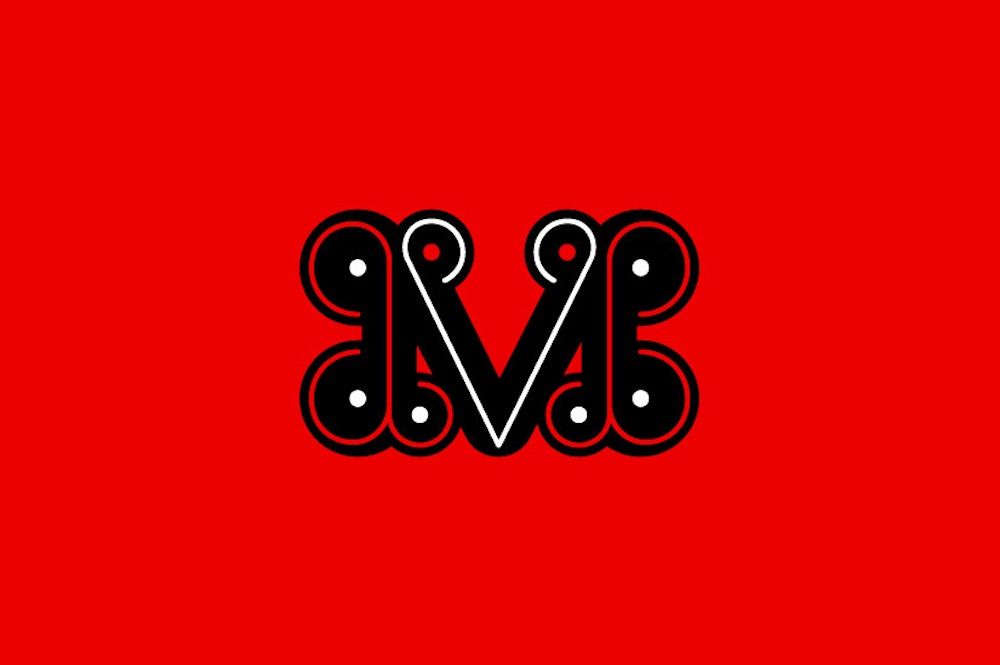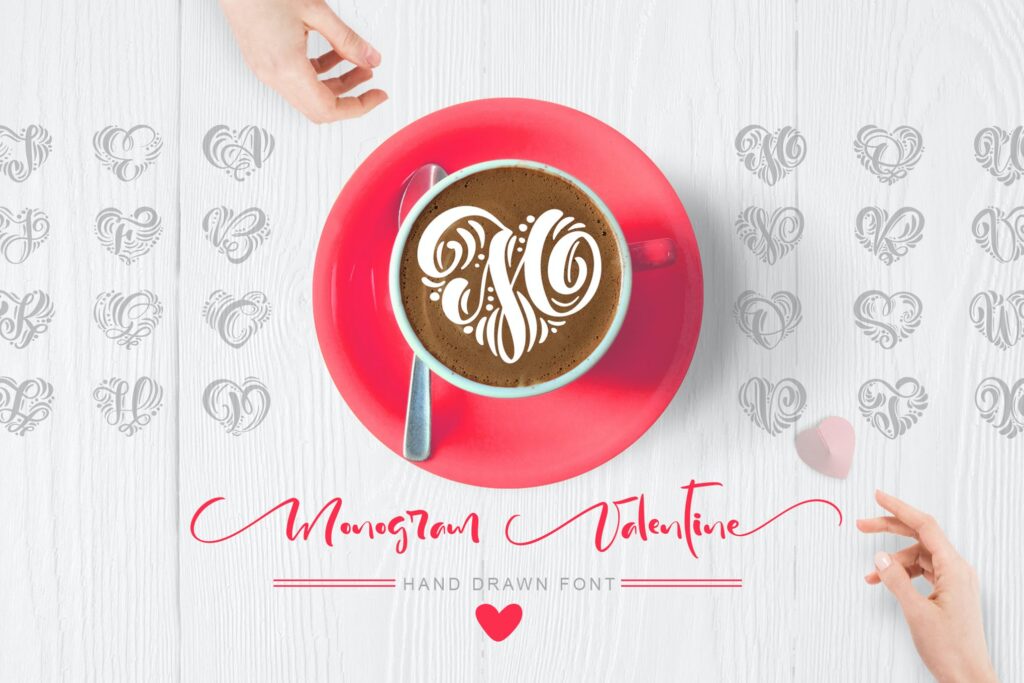
Best Monogram Fonts 2 A Deeper Dive
Best Monogram Fonts 2 isn’t just about picking pretty letters; it’s about understanding the subtle nuances that elevate a simple monogram to a powerful statement. This post delves into the world of monogram fonts, exploring everything from classic styles and historical context to the technical aspects of design and creative applications beyond the typical logo. We’ll uncover the secrets to choosing the perfect font for your next project, whether it’s a luxurious brand identity or a charming wedding invitation.
We’ll dissect the subjective nature of “best,” considering factors like readability, formality, and the impact of font weight and size. Prepare to explore serif versus sans-serif fonts, script versus modern styles, and discover how kerning and letter spacing can dramatically influence the overall aesthetic. We’ll even showcase some stunning examples and provide practical tips for incorporating monogram fonts into your own designs.
Defining “Best”
Choosing the “best” monogram font is entirely subjective. What resonates with one person might feel completely wrong to another. This is because our preferences are shaped by a complex interplay of factors, making a universally agreed-upon “best” impossible to define. Instead, let’s explore the elements that contribute to individual preferences.
Factors Influencing Monogram Font Preferences
Several key aspects influence our choices when selecting a monogram font. Style is paramount; some prefer the classic elegance of a serif font, while others might gravitate towards the clean lines of a sans-serif typeface. Readability is another critical factor, particularly for monograms intended for practical use, such as on stationery or business cards. A highly stylized font might look beautiful but be difficult to decipher.
Finally, the level of formality desired plays a significant role. A script font might be perfect for a wedding invitation, but feel out of place on a corporate logo.
Design Aesthetics in Monogram Fonts
The world of monogram fonts offers a vast array of design aesthetics. Serif fonts, characterized by small decorative strokes at the ends of letters, often convey a sense of tradition and sophistication. Think of the timeless elegance of Garamond or the classic feel of Times New Roman, though adapted for monograms these would require specific adjustments. Sans-serif fonts, lacking these strokes, appear cleaner and more modern, often projecting a sense of minimalism and contemporary style.
Helvetica and Arial are prime examples of widely used sans-serif fonts, although their application in monograms would require careful consideration and possibly custom design. Script fonts, mimicking handwritten calligraphy, offer a romantic and personalized touch, perfect for invitations or personal branding. However, their legibility can be a concern if not carefully chosen. Modern fonts often blend elements from various styles, resulting in unique and often highly versatile designs.
Impact of Font Weight and Size
Font weight significantly impacts the overall feel of a monogram. A bold weight can project strength and confidence, while a lighter weight might appear more delicate and refined. The size of the monogram also plays a crucial role. A larger monogram commands attention, while a smaller one might be more subtle and understated. The ideal weight and size will depend heavily on the intended application and the overall design aesthetic.
For instance, a bold, large monogram might be suitable for a company logo, whereas a smaller, lighter weight monogram might be better suited for a subtle watermark on stationery.
Comparison of Monogram Font Styles
The following table compares three distinct monogram font styles, highlighting their key characteristics and ideal applications:
Font Name (Illustrative Examples) Style Characteristics Best Use Case
Traditional Serif (e.g., a modified Garamond) Serif, Classic Elegant, sophisticated, timeless, potentially less legible in smaller sizes Formal invitations, logos for established businesses, classic branding
Modern Sans-serif (e.g., a custom design based on Helvetica) Sans-serif, Minimalist Clean, modern, versatile, highly legible Corporate branding, contemporary logos, minimalist designs
Elegant Script (e.g., a custom calligraphic design) Script, Calligraphic Romantic, personalized, potentially less legible depending on the style Wedding invitations, personal branding, artistic designs
Exploring Font Styles and Their Applications: Best Monogram Fonts 2
Choosing the right monogram font is crucial for creating a memorable and impactful brand identity. The style of your monogram directly influences how your brand is perceived, communicating everything from luxury and sophistication to casual approachability. This exploration delves into various font styles, their historical context, and their application in different branding scenarios.
See also  What is Lorem Ipsum A Designers Best Friend?
Monogram fonts have evolved significantly over time, reflecting the changing tastes and trends of each era. Understanding this historical context helps us appreciate the nuances and connotations associated with different styles.
Classic Monogram Font Styles and Their Historical Context
Classic monogram styles often draw inspiration from historical lettering and calligraphy traditions. For example, serif fonts, with their small decorative flourishes at the ends of strokes, frequently evoke a sense of tradition and elegance. Think of the elegant, slightly italicized serifs often seen in formal invitations or the logos of established luxury brands. These styles often trace their roots back to the Renaissance or even earlier, reflecting the craftsmanship and attention to detail valued during those periods.
Conversely, simpler, sans-serif monograms, lacking these flourishes, can project a more modern and minimalist aesthetic, often associated with contemporary branding. The clean lines of a sans-serif monogram can be seen in many modern tech company logos, reflecting a sense of efficiency and innovation. Script fonts, mimicking handwritten calligraphy, lend a personal and often luxurious touch, frequently employed in high-end fashion or personalized stationery.
Suitability of Monogram Fonts for Different Branding Purposes
The choice of monogram font significantly impacts brand perception. Luxury goods often utilize elegant serif or sophisticated script fonts to convey exclusivity and high quality. Imagine the embossed, serif monogram on a high-end leather handbag, immediately signaling luxury. In contrast, casual apparel brands might opt for simpler sans-serif or playful script fonts to create a more approachable and relatable image.
A bold, sans-serif monogram on a t-shirt brand communicates a modern and accessible style. Formal invitations commonly feature elegant serif or script fonts, reflecting the formality of the occasion. The intricate details of a script font on a wedding invitation create a sense of romance and celebration.
Examples of Monogram Fonts Used in Logos and Branding
Many successful brands effectively utilize monogram fonts in their logos. The iconic Chanel logo, with its interlocking Cs, is a prime example of a sophisticated script monogram that instantly communicates luxury and timeless elegance. The simple, geometric sans-serif monogram of IBM conveys a sense of stability and technological prowess. Conversely, the slightly playful script monogram of a brand like Ralph Lauren successfully blends classic elegance with a touch of casual sophistication.
These examples demonstrate how the right font choice can significantly contribute to a brand’s overall identity and messaging.
Mock Monogram Logo Designs
Let’s visualize three different monogram logos, each showcasing a distinct font style and its associated brand personality.
Design 1: Luxury Perfume Brand
– A sophisticated serif font, reminiscent of Art Deco typography, is used to create an elegant and refined monogram. The letters are slightly italicized and feature subtle flourishes, enhancing the luxurious feel. The color palette consists of deep jewel tones, further reinforcing the sense of opulence and high quality. The overall impression is one of classic elegance and timeless sophistication.
Design 2: Modern Tech Startup
-A minimalist sans-serif font is employed, featuring clean lines and geometric shapes. The monogram is simple and uncluttered, reflecting the efficiency and innovation associated with the tech industry. The color scheme utilizes a bold primary color, creating a strong visual impact and conveying a sense of energy and modernity. The overall design communicates clarity, precision, and forward-thinking.
Design 3: Artisanal Coffee Roaster
-A slightly rustic serif font with a handcrafted feel is chosen. The monogram features subtle texture and imperfect lines, suggesting authenticity and a handcrafted approach. The color palette incorporates warm earthy tones, evoking a sense of comfort and natural goodness. The overall design communicates warmth, quality, and a connection to traditional craftsmanship.
Technical Aspects of Monogram Fonts
Creating a truly stunning monogram involves more than just picking a pretty typeface; it delves into the technical intricacies of typography. Understanding these aspects is crucial for achieving both aesthetically pleasing and functionally sound results. This section will explore the process of crafting custom monogram fonts, the importance of fine-tuning spacing, and common pitfalls to avoid.
Custom Monogram Font Creation
The creation of a custom monogram font is a multifaceted process, often requiring specialized software and a strong understanding of typography. It typically begins with sketching initial designs, exploring different stylistic approaches, and defining the overall aesthetic. Then, using vector-based software like Adobe Illustrator or FontLab Studio, the designer meticulously crafts each letterform, ensuring consistency in weight, stroke width, and overall style.
This involves careful consideration of letter connections, serifs (if applicable), and the overall visual harmony between letters. Once the individual characters are finalized, they are meticulously tested and adjusted within a font editor to ensure proper spacing and kerning. Finally, the font is exported in various formats (like OTF or TTF) for use in design software. The entire process is iterative, requiring numerous refinements and adjustments until the desired quality is achieved.
Kerning and Letter Spacing in Monogram Design
Kerning and letter spacing are critical for monogram legibility and visual appeal. Kerning refers to the adjustment of space between individual letter pairs, while letter spacing (tracking) adjusts the space between all letters in a word or phrase. In monogram design, precise kerning is especially important, as the close proximity of letters within a monogram can easily lead to visual crowding or awkward spacing if not carefully adjusted.
See also  Design Creating Instant Impressions on People
For example, the space between a tightly curved “C” and a straight “M” might need to be reduced to avoid an overly wide gap. Conversely, letters like “A” and “V” might require increased spacing to prevent them from appearing visually cramped. Mastering these adjustments ensures that the monogram is balanced, harmonious, and easily readable, even at small sizes.
Common Issues with Monogram Fonts
Despite their elegance, monogram fonts can present challenges. Legibility is often a primary concern, especially when using highly stylized or ornate designs. Excessively decorative fonts can make it difficult to distinguish between letters, especially in smaller sizes. Scalability is another key issue; a font that looks crisp at large sizes might become blurry or distorted when scaled down for use in small applications like website icons or social media profiles.
Finally, the limited character set of a monogram font (typically only containing uppercase letters and potentially some numerals) can restrict its applications compared to a full alphabet font. Careful consideration of these limitations is crucial for choosing and using monogram fonts effectively.
Resources for Finding High-Quality Monogram Fonts
Finding high-quality monogram fonts is relatively easy, with many options available both for free and at a cost.
• Free Resources: Websites like Google Fonts, Font Squirrel, and DaFont offer a selection of free monogram fonts, although the quality and variety can be limited. It’s important to carefully review licenses before using free fonts, as some have restrictions on commercial use.
• Paid Resources: Platforms like Creative Market, Etsy, and MyFonts offer extensive collections of high-quality monogram fonts, often created by professional designers. Paid fonts typically offer better quality, more extensive character sets, and often include commercial licenses.
• Font Foundries: Many independent font foundries specialize in creating custom fonts, including monograms. These often provide bespoke designs and high levels of customization, but come at a higher price point.
Remember to always preview fonts at various sizes and in different contexts before committing to a purchase to ensure they meet your specific needs.
Creative Applications Beyond Logos
Monogram fonts, while undeniably powerful in logo design, possess a versatility that extends far beyond corporate branding. Their elegant simplicity and inherent personalization make them ideal for a wide range of creative projects, adding a touch of sophistication and unique identity to various design applications. Let’s explore some exciting ways to utilize these fonts beyond the typical logo.
Monogram Fonts in Stationery and Wedding Invitations
The classic elegance of monogram fonts finds a natural home in stationery and wedding invitations. Imagine a crisp, minimalist business card featuring a subtly embossed monogram in a serif typeface like Didot or a playful, handwritten-style monogram on a brightly colored wedding invitation suite using a script font like Pacifico. The personalized touch instantly elevates the piece, adding a level of sophistication and distinction.
For stationery, a subtle monogram can be incorporated into letterheads, envelopes, and notecards, creating a cohesive and professional brand identity. Wedding invitations can utilize monograms prominently, perhaps incorporating them into the main design element or as a subtle detail on the RSVP card. The choice of font heavily influences the overall tone and style; a bold, geometric monogram projects a modern feel, while a delicate, flowing script creates a romantic ambiance.
Monogram Fonts in Packaging Design
Packaging design offers another fertile ground for creative monogram applications. Consider a luxury skincare brand using a refined, Art Deco-inspired monogram on its product packaging. The monogram could be embossed, foil-stamped, or simply printed, depending on the desired aesthetic and production budget. Similarly, a craft brewery might employ a rustic, hand-drawn monogram on its beer labels, conveying a sense of authenticity and handcrafted quality.
So, I’ve been obsessed with finding the best monogram fonts 2 lately – seriously, the possibilities are endless! I even found myself needing a little inspiration for creating engaging thumbnails, which led me to check out this awesome guide on getting it on with youtube for some video marketing tips. Turns out, good visuals are key, even for something as seemingly simple as monogram design.
Back to those fonts though – I think I’ve finally narrowed it down!
The monogram acts as a visual shorthand for the brand, instantly recognizable and memorable. Even simpler products can benefit; a small, elegant monogram on a bespoke candle or a handcrafted soap adds a touch of luxury and personality.
Monogram Fonts in Typography-Focused Artwork
Monogram fonts can be the star of the show in typography-focused artwork. Imagine a piece of art where the monogram itself is the central focus, perhaps manipulated and layered to create a visually striking effect. The artwork could utilize different sizes, weights, and colors of the same monogram, creating a sense of rhythm and visual interest. A simple, elegant monogram in a classic serif typeface could be beautifully rendered in a minimalist poster design.
Alternatively, a more complex, intricate monogram could form the basis of a more elaborate artwork, incorporating textures and gradients to enhance its visual appeal. The creative possibilities are virtually endless. One could even experiment with different techniques, such as letterpress printing or hand-lettering, to add unique texture and depth to the final piece.
Monogram Fonts in Website Design
Incorporating monogram fonts into website design requires careful consideration. Overuse can easily overwhelm the design. However, strategically placed, a monogram can add a touch of class and sophistication. A subtle monogram can be used as a favicon (the small icon displayed in browser tabs), or as a watermark on images. More prominently, it could be used as a logo, naturally, or as a subtle design element within the header or footer.
See also  Full Branding Packages Businesses Thrive
The key is to maintain balance and ensure the monogram complements the overall website design rather than competing with it. For example, a clean, modern website might use a minimalist geometric monogram, while a more traditional website might opt for a classic serif or script font. The choice of font should always align with the overall brand aesthetic and target audience.
Visual Representation of Creative Monogram Font Applications
Imagine three distinct visuals. First, a close-up shot of a luxurious wedding invitation suite. The main invitation features a delicate, script-style monogram in a deep burgundy ink, elegantly intertwined with floral elements, printed on thick ivory cardstock. Second, a photograph showcasing a range of artisanal soaps, each bearing a simple, embossed monogram in a classic serif typeface.
The monograms are subtly different in design for each soap’s unique scent, showcasing brand identity while maintaining consistency. Third, a digital mockup of a website homepage. The header subtly features a geometric monogram in a muted gold tone, acting as a refined brand identifier against a clean, minimalist background. The overall effect is sophisticated and memorable, showcasing the monogram’s subtle yet impactful role in the website’s design.
Font Compatibility and Usage
Choosing the perfect monogram font is only half the battle. Ensuring its seamless integration across different platforms and its legal usage are equally crucial for a successful project. This section delves into the practical aspects of font compatibility, licensing, and best practices for achieving optimal clarity and readability.
Monogram fonts, like all typefaces, aren’t universally compatible. Their rendering can vary depending on the operating system, software application, and even the device’s display settings. Licensing considerations are also paramount, especially for commercial use. Understanding these factors is vital for avoiding costly mistakes and ensuring a professional outcome.
Operating System and Software Compatibility
The compatibility of a monogram font hinges on the operating system’s font rendering engine and the software’s ability to interpret font data correctly. For example, a highly stylized font might render perfectly in Adobe Illustrator but appear distorted or pixelated in a basic word processor. Fonts designed for print may not translate well to screens, and vice-versa. Testing your chosen font across various platforms (Windows, macOS, iOS, Android) and software (Adobe Creative Suite, Microsoft Office, web browsers) is essential before finalizing its use.
Slight adjustments to kerning or tracking might be necessary to ensure consistent appearance across different environments. Furthermore, older operating systems may have limited support for newer font formats, potentially leading to display issues.
Licensing Implications for Commercial Projects
Using fonts in commercial projects requires careful attention to licensing. Most fonts fall under specific licenses, which dictate how they can be used. Free fonts often have restrictions on commercial use, while commercial fonts usually require purchasing a license. These licenses can vary, permitting use for personal projects, web use, print media, or embedding in software, with each usage type potentially having a different cost.
Ignoring licensing agreements can lead to copyright infringement, resulting in legal action and financial penalties. Always check the license agreement before using any font in a commercial project. Using a font without a proper license can result in significant legal and financial consequences. It’s crucial to obtain the appropriate license to avoid these issues.
Selecting Appropriate Monogram Fonts Based on Project Requirements, Best monogram fonts 2
The best monogram font for a project depends heavily on its intended application and target audience. A classic serif font might be suitable for a luxurious brand, while a modern sans-serif font could be better for a tech startup. Consider the overall aesthetic, brand identity, and readability requirements. For instance, a monogram intended for a wedding invitation will likely require a more elegant and refined typeface compared to a monogram for a sports team, which may benefit from a bolder, more impactful font.
The context and intended audience must always guide font selection. Simple, legible fonts are generally preferable for logos that will be used at small sizes or in various contexts.
Ensuring Clarity and Readability of Monograms
Clarity and readability are paramount for any monogram. The font’s weight, size, spacing, and kerning all play a role in its legibility. Overly ornate or complex fonts can be difficult to read, especially at smaller sizes. Testing the monogram at various sizes and resolutions is crucial to ensure it remains clear and easily recognizable. Sufficient spacing between letters (kerning) is essential to prevent letters from merging or appearing cramped.
Furthermore, the choice of background color and contrast also impact readability. A monogram placed on a busy background should have sufficient contrast to stand out effectively. In digital applications, the resolution of the image file is critical for ensuring that the monogram retains its crispness when scaled.
Closing Notes
Ultimately, selecting the “best” monogram font is a deeply personal journey, guided by your unique vision and project needs. This exploration of Best Monogram Fonts 2 has hopefully equipped you with the knowledge and inspiration to confidently navigate the world of monogram design. Remember to consider the context, your audience, and the overall message you want to convey.
With careful consideration and a touch of creativity, your monogram can become a timeless symbol of elegance and sophistication.
FAQ Insights
What’s the difference between serif and sans-serif monogram fonts?
Serif fonts have small decorative strokes at the ends of their letters, giving them a more classic and traditional feel. Sans-serif fonts lack these strokes, appearing cleaner and more modern.
Where can I find free monogram fonts?
Many websites offer free monogram fonts, but always check the licensing terms to ensure you can use them for your intended purpose. Google Fonts is a good starting point.
How do I ensure my monogram is legible at small sizes?
Choose a font with clear, well-defined letterforms. Avoid overly ornate or thin fonts that might lose detail when scaled down. Test your monogram at various sizes to ensure readability.
What is kerning, and why is it important in monogram design?
Kerning is the adjustment of space between individual letters to improve readability and visual appeal. Proper kerning is crucial for creating a balanced and professional-looking monogram.